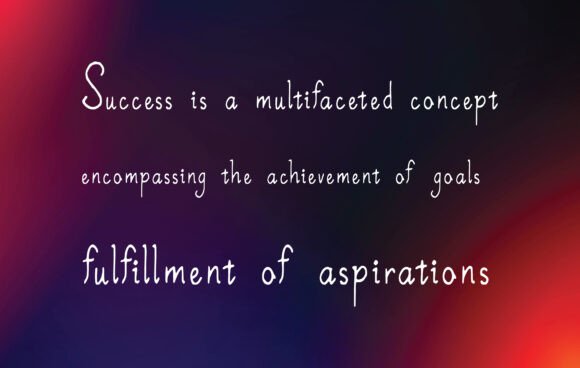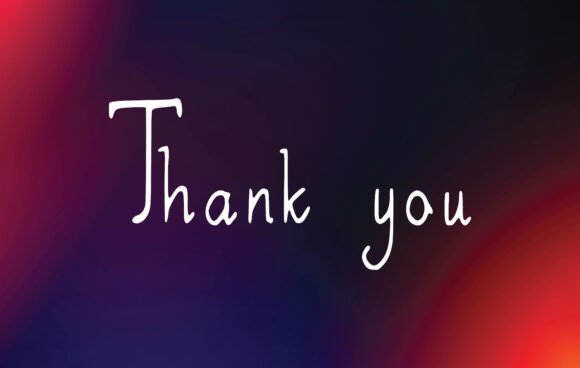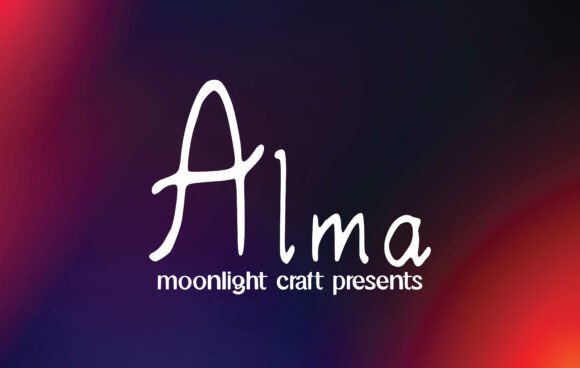
The Alma Font: A Designer’s New Best Friend
I still remember the last time I was working on a branding project for a client, and I was stuck on finding the perfect font. The client wanted something elegant, yet playful; something that would make their logo stand out. I spent hours scouring through font libraries, but nothing seemed quite right. That was until I stumbled upon the Alma font. ✨
Alma is a lovely and beautiful handwritten font that has the potential to take your creative ideas to the highest level. It’s perfect for creating eye-catching logos, branding, and quotes. In this article, I’ll share my experience with Alma, its features, and how to make the most of it in your designs.
An Honest Review of Alma Font
What I Love About Alma Font
• ✨ Elegant and sophisticated, yet playful and friendly
• 💫 Beautifully crafted with attention to detail
• 🎨 Versatile and can be used for a wide range of design projects
While Alma font is amazing, there are a few things to keep in mind: 🤔
• ⚠️ Some characters may not work well in all contexts, so it’s essential to test the font thoroughly
• ⚠️ May not be suitable for very long texts, as it’s designed primarily for headlines and short paragraphs
The Story Behind Alma Font
Alma font was designed with the intention of creating a beautiful and elegant handwritten font that would inspire creativity and bring a touch of sophistication to designs. The designer aimed to craft a font that would be versatile and highly legible, making it perfect for a wide range of design projects.
Q: What is Alma font best used for?
A: Alma font is best used for creating eye-catching logos, branding, and quotes. It’s perfect for designs that require a touch of elegance and sophistication.
Q: Is Alma font suitable for long texts?
A: While Alma font is highly legible, it’s primarily designed for headlines and short paragraphs. It may not be the best choice for very long texts.